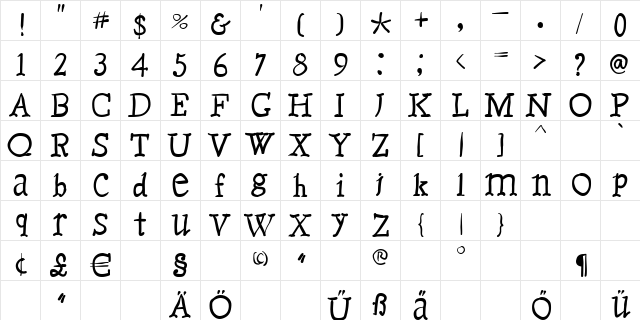
Caslonia Regular
Design Context for Caslonia Typeface
Caslonia takes a measured approach to typography — its balanced proportions and neutral character make it a reliable workhorse for both digital and print work.